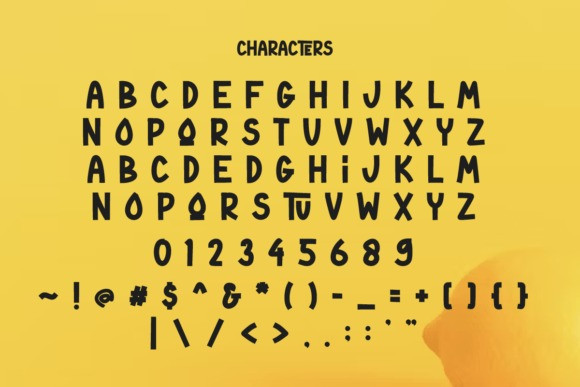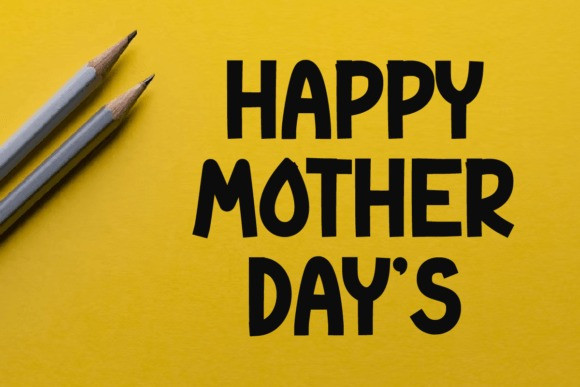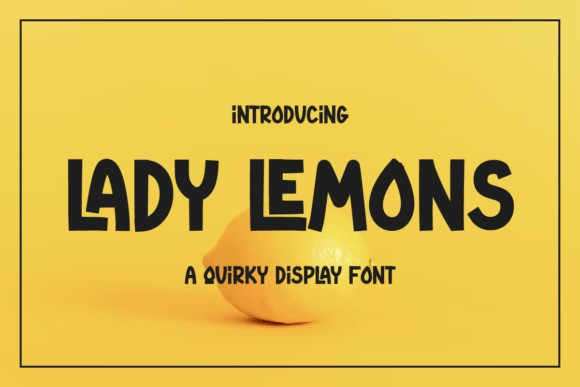
Lady Lemons Font
Lady Lemons Font, the perfect font for adding a touch of elegance and sophistication to your crafting projects. With its unique, bold style and sleek lines, LadyLemons is perfect for everything from Mother’s Day cards to business logos and everything in between.
So whether you’re looking to create beautiful greeting cards for Mother’s Day, or simply want to add a touch of style to your print projects, Lady Lemons is the perfect choice. Try it out today and see the difference for yourself!